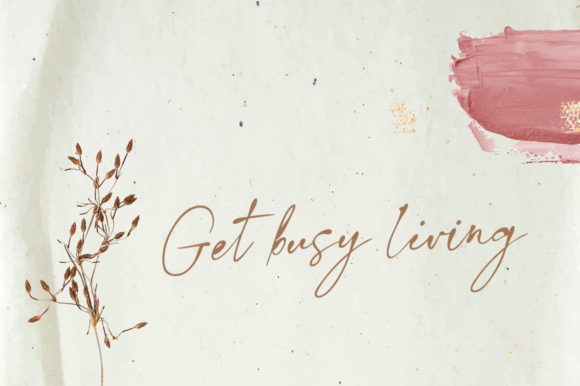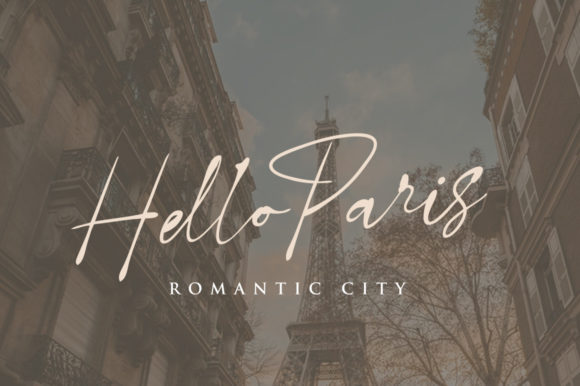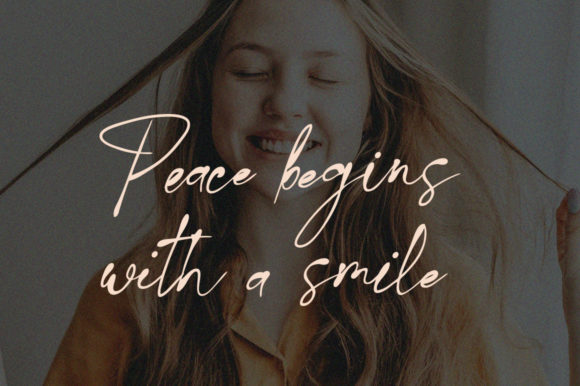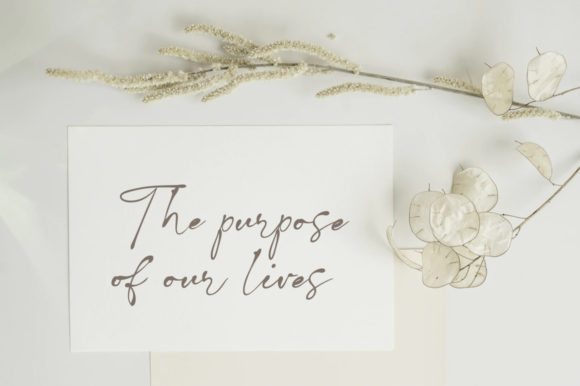
About Javiersa Font
Javiersa is a thin and romantic handwritten font. It looks stunning on wedding invitations, thank you cards, quotes, greeting cards, logos, business cards and every other design which needs a personalized touch. It features a varying baseline, smooth lines, gorgeous glyphs and stunning alternates.